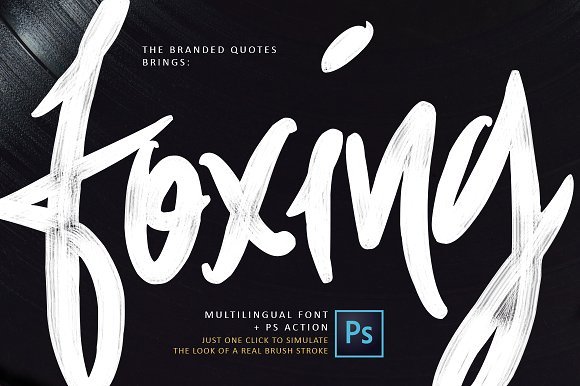
Foxing Brush Font
Hi friends! If you are looking for a font script brush, this will be a perfect choice. Introducing Foxing! It is designed by The Branded Quotes. It’s a brand new year and The Branded Quotes is bringing something fresh to the table! An all new idea as to how your typography be displayed. Foxing font is a hybrid of the street calligraphy and the gorgeousness of a script font. Curvy and tough!